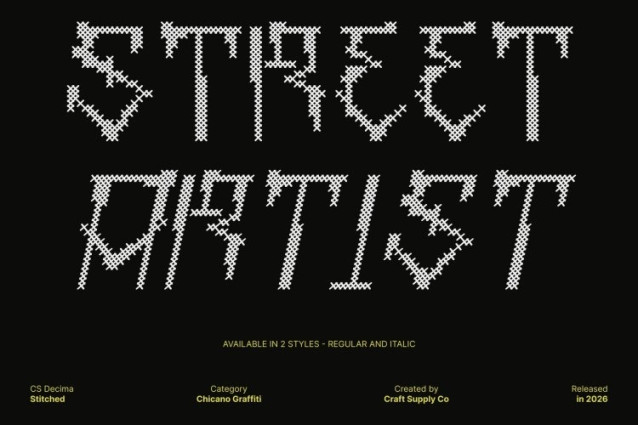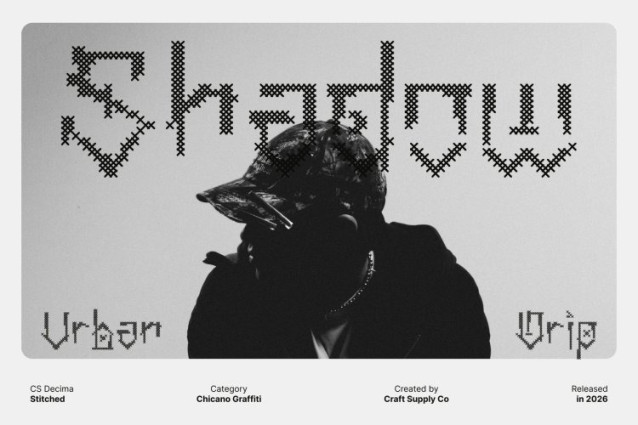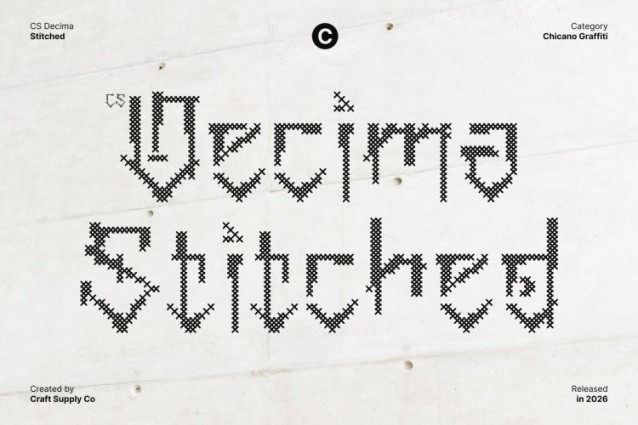
CS Decima Stitched Font
CS Decima Stitched Font – This is a bold graffiti display font that channels the raw, expressive spirit of street art. Its dynamic curves, irregular shapes, and exaggerated strokes recreate the authentic feel of hand-painted lettering, while the stitched texture adds a unique handcrafted twist. The result is typography that feels rebellious, energetic, and full of personality.
Expressive, Edgy, and Eye-Catching
The irregular letterforms create a strong visual rhythm that instantly stands out. This edgy design brings movement and spontaneity to any layout, making it perfect for bold headlines, branding, and posters that need a striking urban attitude.
Handmade Texture with Street Character
The stitched effect introduces warmth and tactility, blending the roughness of graffiti with a crafted, artistic finish. This balance makes the font feel both raw and thoughtfully designed, adding depth and uniqueness to every composition.
Perfect for Youthful and Creative Projects
Ideal for music promotions, streetwear branding, social media graphics, and urban-themed visuals, this font delivers a fearless, modern voice. It’s the perfect choice for designs that celebrate individuality, creativity, and the vibrant culture of the streets.